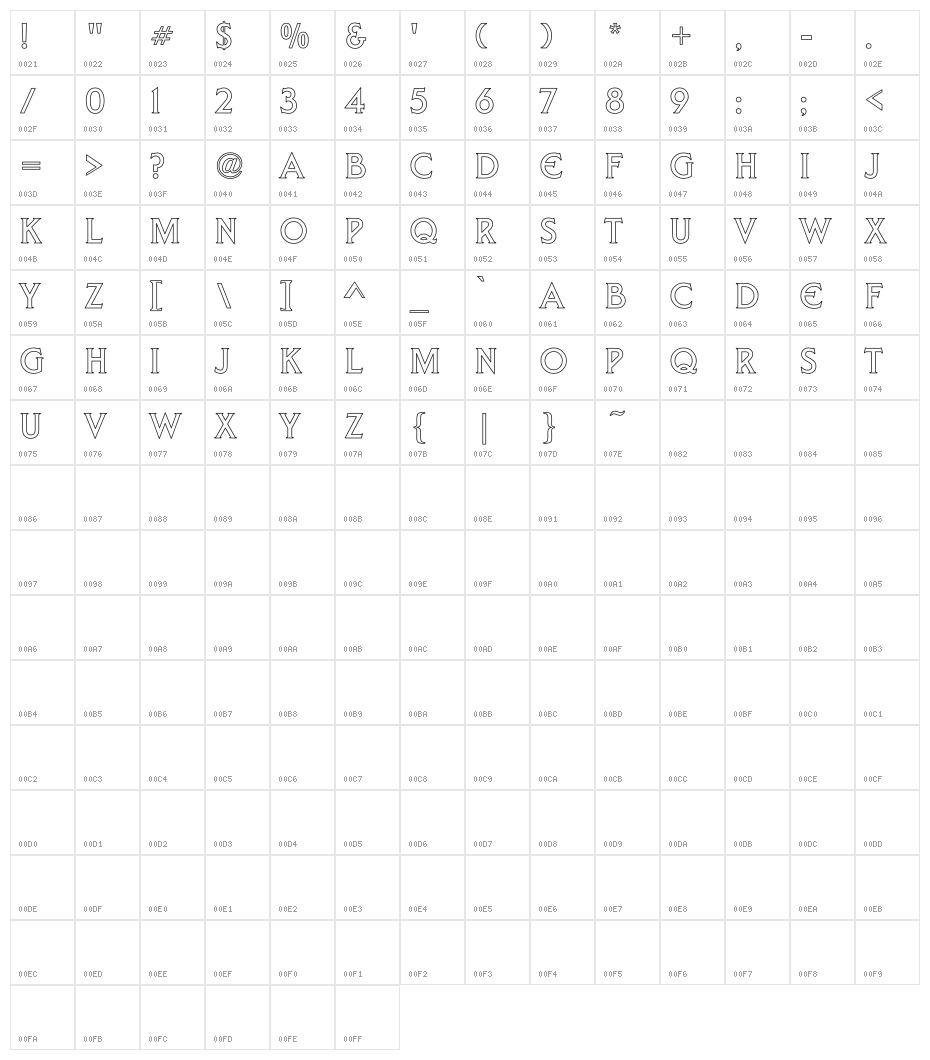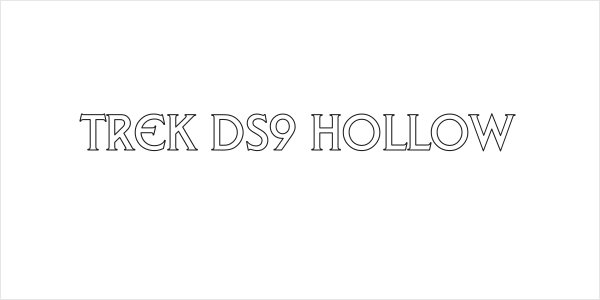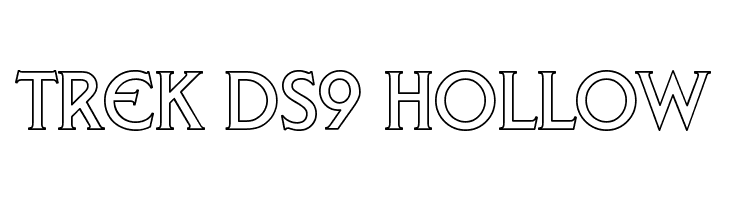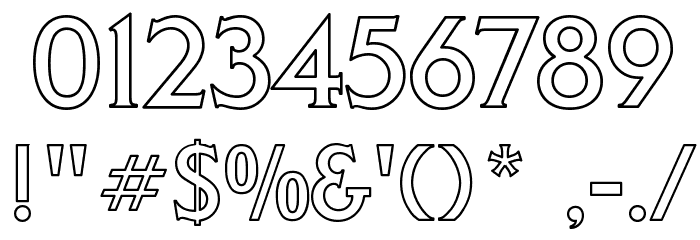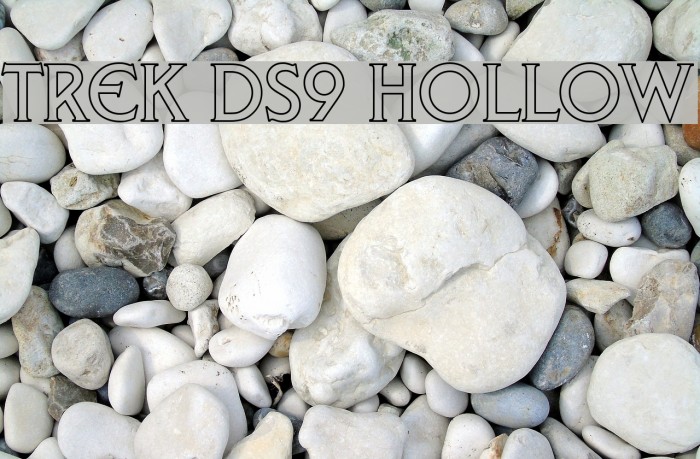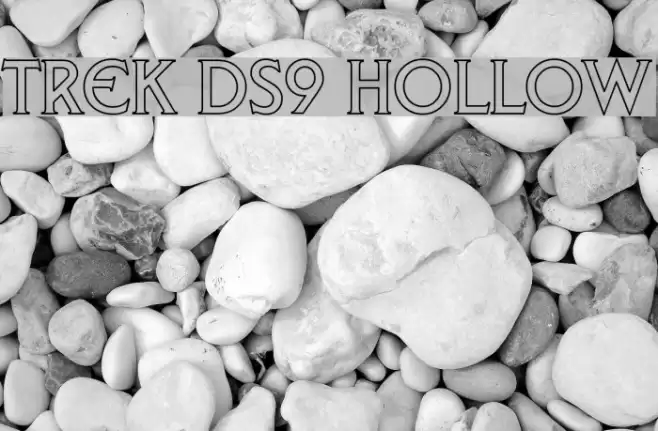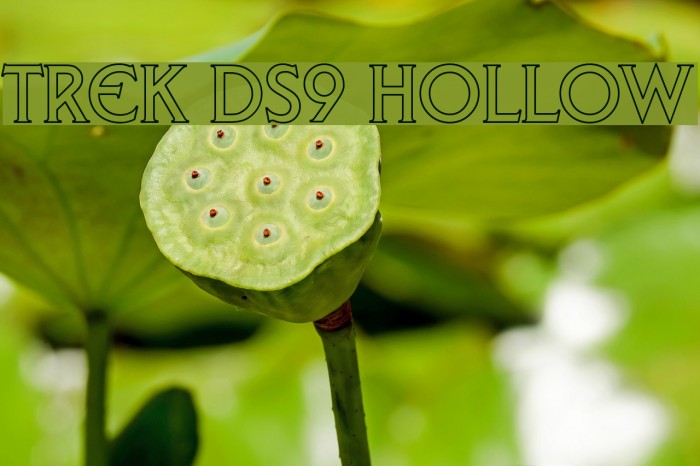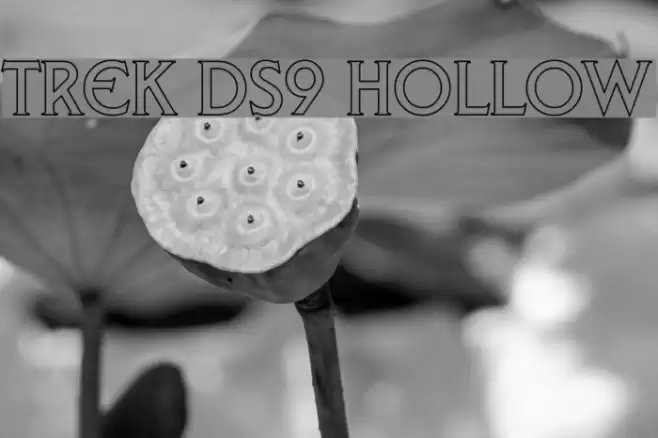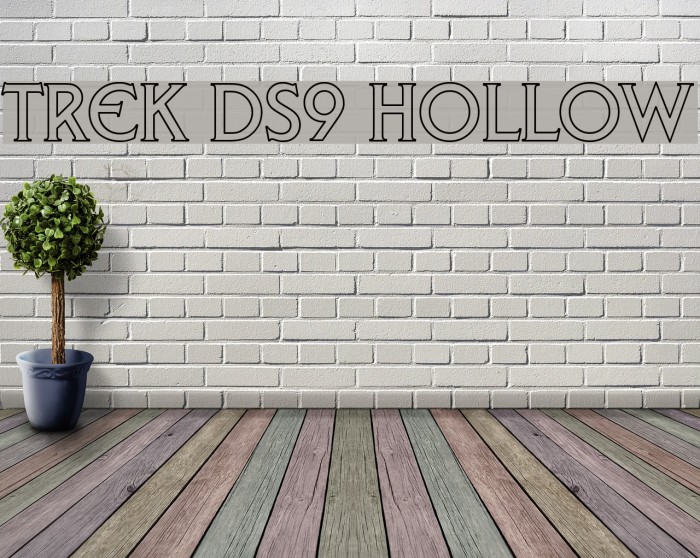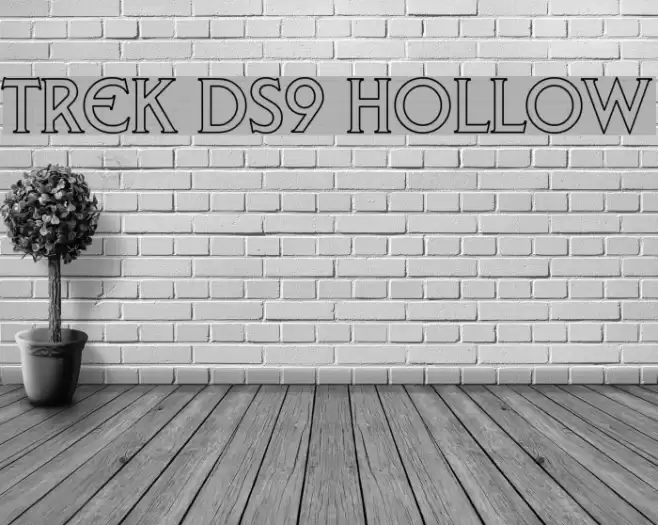
Trek DS9 Hollow Font
Trek DS9 Hollow Description
This font features a hollow, outlined design that gives it a futuristic and sleek appearance. The characters are bold and well-defined, with a geometric structure that emphasizes clarity and readability. The uppercase and lowercase letters maintain a consistent style, with sharp angles and clean lines. The numerals and special characters are designed to match the overall aesthetic, providing a cohesive look across all elements. This font's unique hollow style makes it stand out, offering a modern twist on traditional serif fonts.
| Proposed Projects | Ideal for sci-fi themed projects, posters, branding, and titles where a modern and distinctive look is desired. |